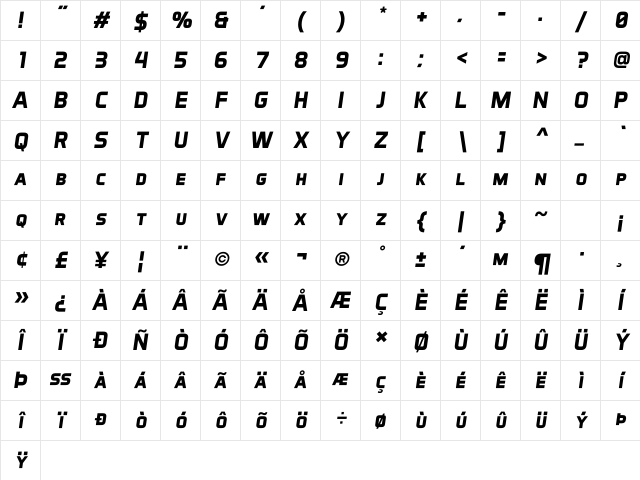
Aero Matics Display Bold Italic
Designer: Jayvee D. Enaguas (GrandChaos)
Aero Matics Display Family
Design Context for Aero Matics Display
Aero Matics Display is built around its visual character rather than neutral utility - its distinctive forms are designed to make an impression at display sizes. The slanted form adds forward momentum and visual energy. Its bold stroke weight gives it real presence on the page.
Font Pairing: Pair with a clean neutral sans-serif for body copy to let Aero Matics Display's character lead without overwhelming the composition.
Pro Tip: Use Aero Matics Display exclusively at display sizes - it was designed to be seen, not read at length. Let a neutral companion handle body copy.